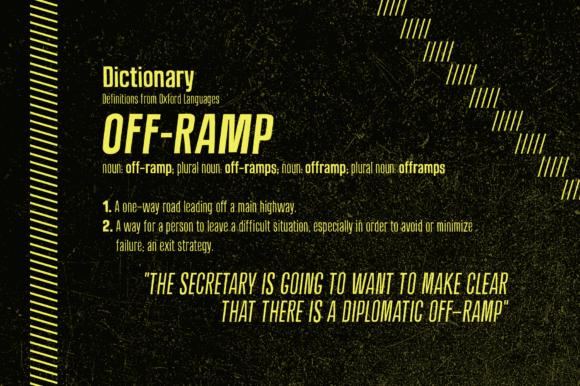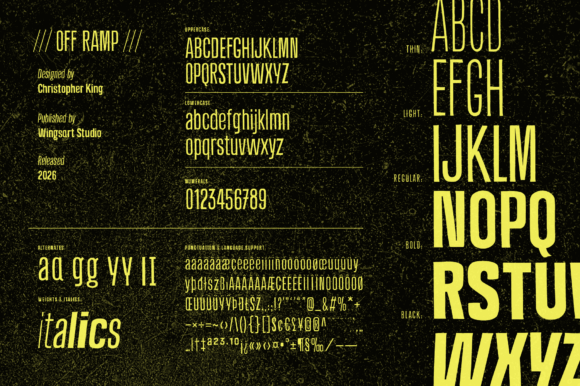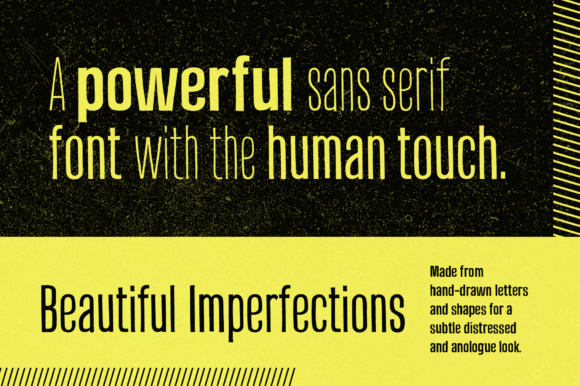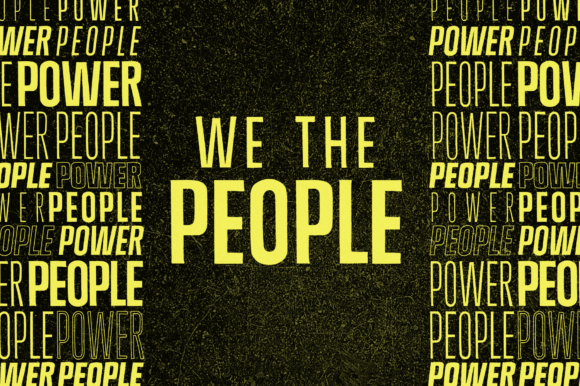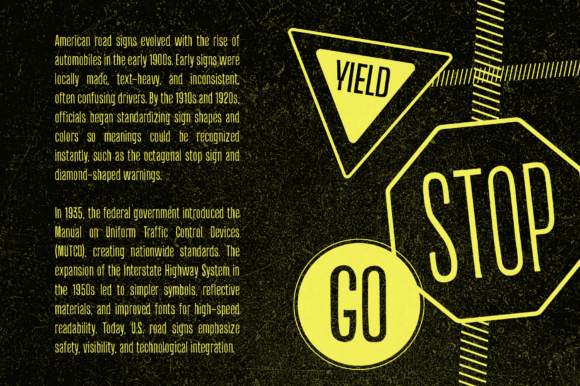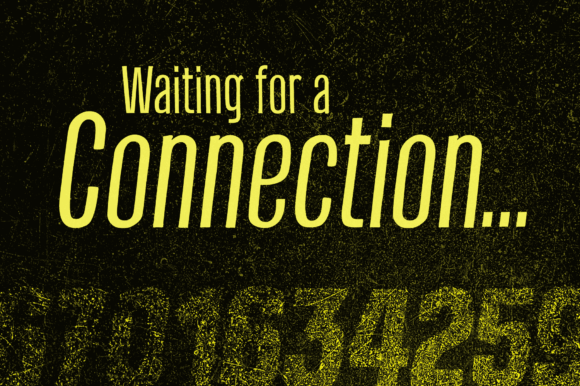
Uncovering the Hidden Language of the Road: Off Ramp Font
As you’re driving through the city, have you ever noticed the tiny details that make up the urban landscape? The faded letters on a bus stop, the hand-painted signs warning of heavy traffic, or the cryptic directions sprayed onto the asphalt? These everyday messages might seem insignificant, but they hold a certain charm that can inspire creativity. For designers, capturing this essence is key to crafting a unique visual identity.
Enter the Off Ramp Font, a high-quality sans-serif font family that draws inspiration from these everyday drive-by messages. With its subtly weathered look and industrial legibility, this font adds a human touch to any design project, making it an invaluable resource for creatives. Whether you’re working on a free download or a paid project, Off Ramp Font is a must-have design tool that will elevate your creative project to new heights.
Key Features of Off Ramp Font
- High-quality design: Off Ramp Font is crafted with attention to detail, ensuring a professional and polished look for your creative project.
- Transparent background: This font features a transparent background, making it ideal for use on various design elements and backgrounds.
- High-resolution design: Off Ramp Font is designed at 300 DPI, making it suitable for use in high-resolution designs, such as print materials and large-format displays.
- Unique character set: This font features a distinctive character set, including a range of creative and decorative glyphs, perfect for adding a touch of personality to your design.
Honest Review: Off Ramp Font
I recently stumbled upon the Off Ramp Font, a high-quality design resource that has caught my attention. At first glance, I was drawn to its sleek and modern aesthetic, perfect for creative projects that demand a touch of sophistication.
The font’s transparent background makes it incredibly versatile, allowing designers to easily combine it with other design elements. This feature is particularly useful for those working on graphic design projects where a seamless blend of textures and graphics is essential.
- High-quality design with a modern aesthetic
- Transparent background for seamless blending
- ⚠️ Limited compatibility with older software or operating systems
- ⚠️ May not be suitable for projects requiring extremely bold or elaborate typography
Overall, I’m impressed with the Off Ramp Font’s potential as a design resource. While it may have some limitations, its high-quality design and free download option make it a great choice for designers working on creative projects.
The Off Ramp Font is a high-quality design resource ideal for creative projects. This font features a transparent background, making it versatile for use in various applications.
Tips for Getting the Most Out of Off Ramp Font
To get the most out of the Off Ramp Font, experiment with different font sizes, colors, and combinations. Use it to add a touch of elegance to your designs.
The Off Ramp Font is perfect for:
- Business cards and branding materials
- Social media graphics and advertising